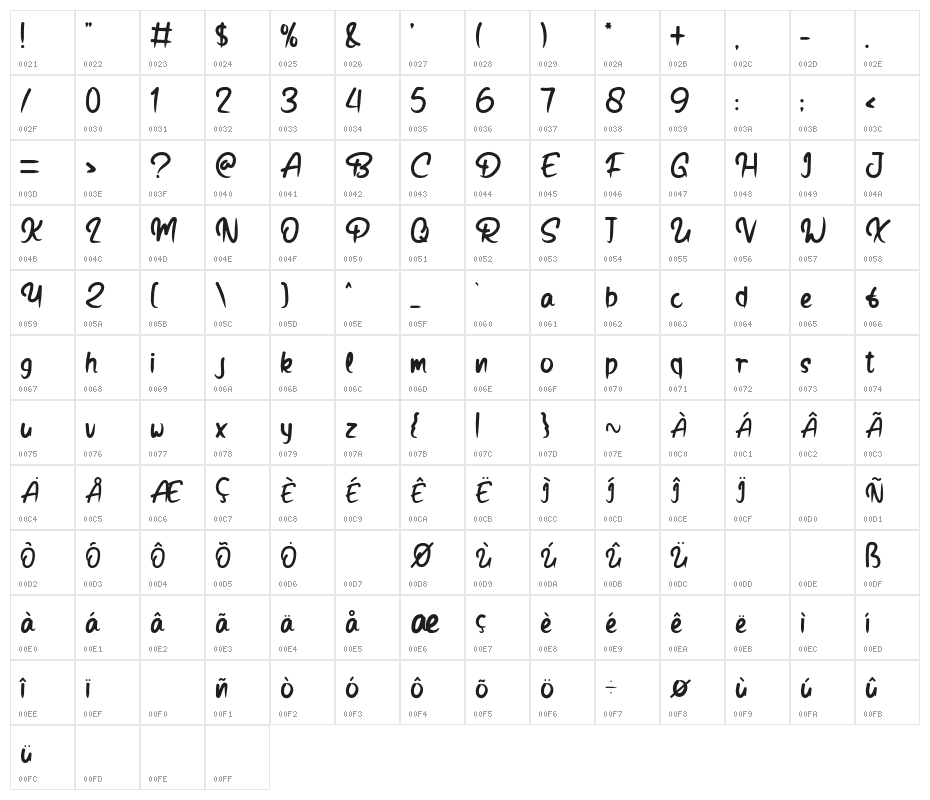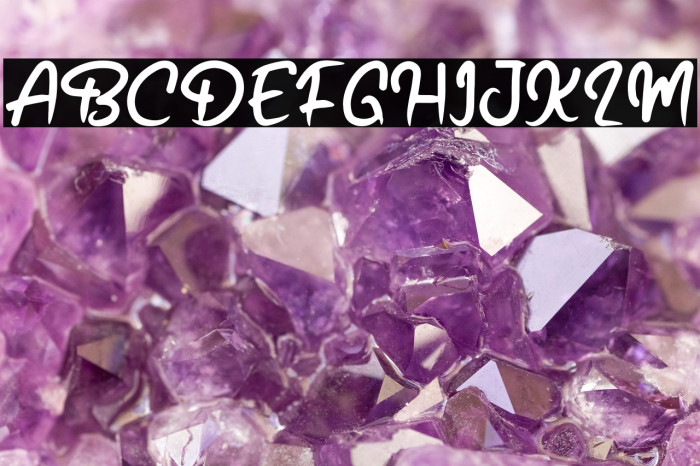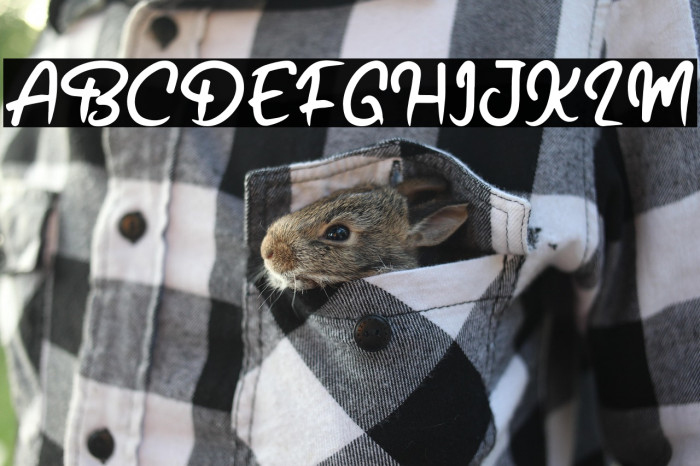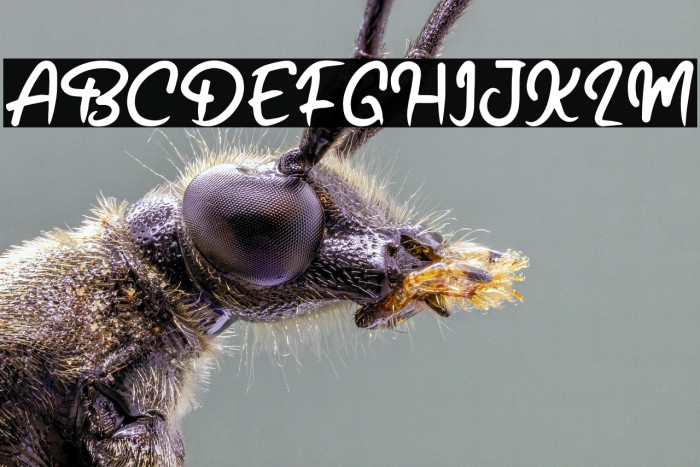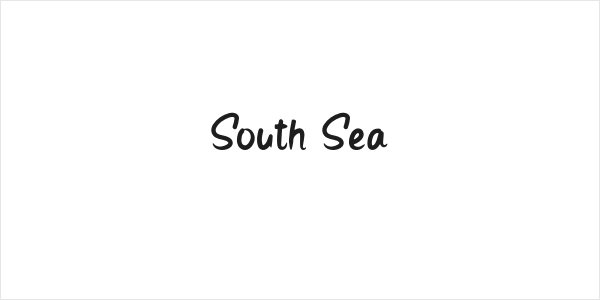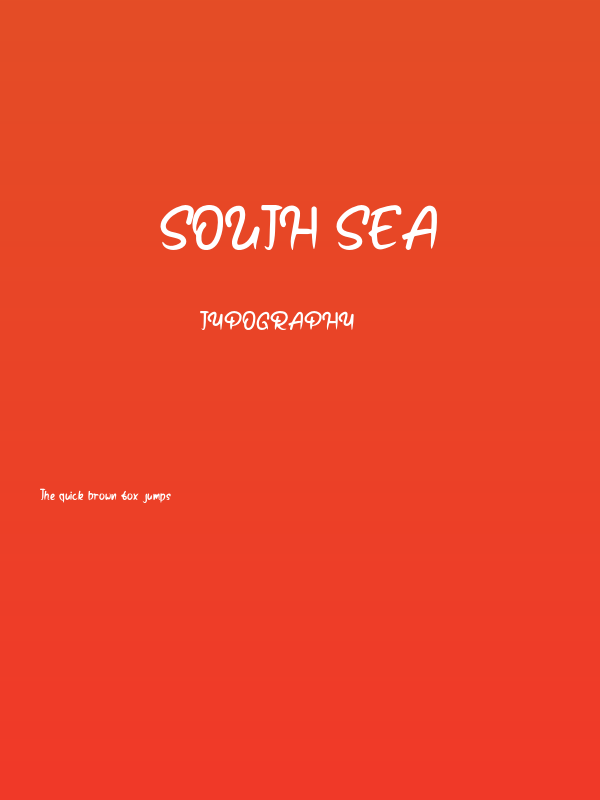
South Sea Font
South Sea Description
This font features a playful and casual script style, characterized by its smooth, flowing lines and slightly irregular strokes. The letters have a handwritten appearance, with a consistent slant that adds to its informal charm. The uppercase letters are bold and prominent, while the lowercase letters maintain a balanced and cohesive look. The numbers and special characters follow the same stylistic cues, ensuring a uniform appearance across all glyphs. This font's design is both approachable and versatile, making it suitable for a variety of creative applications.
| Proposed Projects | Ideal for greeting cards, invitations, personal branding, and creative projects that require a friendly and informal touch. |